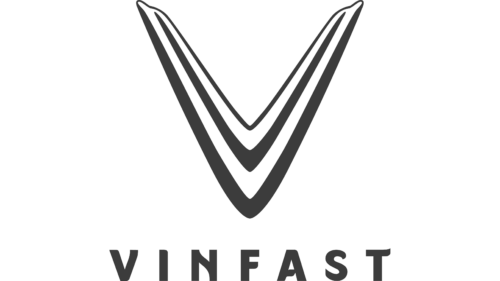
VinFast is an automotive brand from Vietnam, established by Vingroup, one of the country’s largest private enterprises, led by Pham Nhat Vuong. Launched in 2017, it represents Vietnam’s ambition in the global automobile market. Initially focusing on internal combustion vehicles, VinFast swiftly pivoted to electric vehicles, aligning with global sustainability trends. Their production facility, located in Hai Phong, Vietnam, is known for its modernity and scale. VinFast aims to bring Vietnamese engineering to the global stage, emphasizing innovation, quality, and eco-friendliness.
VinFast, a trailblazer in Vietnam’s automotive sector, was conceived by Vingroup, a prominent conglomerate. Its founder, Pham Nhat Vuong, envisioned creating Vietnam’s first global car brand. VinFast debuted at the 2018 Paris Motor Show, making a bold statement. Initially producing internal combustion engine models, it quickly adapted to the EV trend, underscoring its commitment to sustainability. In 2019, their Hai Phong plant, a marvel of modern technology, began rolling out cars. By 2021, VinFast announced a focus solely on electric vehicles, a strategic pivot towards eco-conscious manufacturing. This move placed VinFast at the forefront of Southeast Asia’s push towards electric mobility, showcasing Vietnam’s burgeoning prowess in the global automotive industry.
What is VinFast?
VinFast, hailing from Vietnam, is a dynamic entrant in the global automotive industry, primarily known for its electric vehicles. Founded in 2017 by Vingroup, under the vision of Pham Nhat Vuong, it marks Vietnam’s ambitious leap into automobile manufacturing, blending innovative design with sustainability.
VinFast logo
The logo is a sleek monogram of the letter “V,” signifying vigor and velocity. Composed of two bold, silver chevrons converging upwards, it evokes a sense of ascension and progress. This emblem, minimalist yet powerful, reflects a modern and forward-thinking identity, suggestive of sharp precision and dynamic movement. The use of monochrome lends it a classic, timeless quality, while its symmetry conveys balance and stability. The brand name ‘VinFast’ is cleanly typeset below, complementing the emblem with its simplicity and clarity.